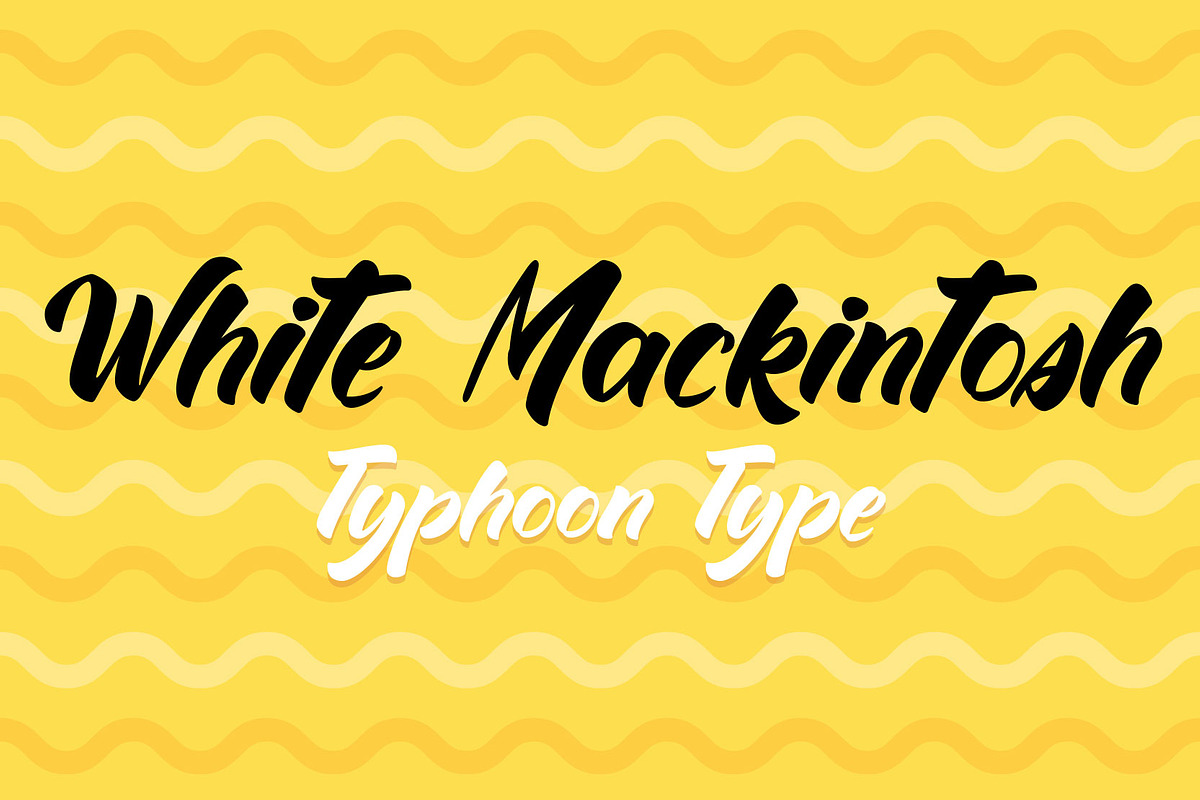
White Mackintosh font
White Mackintosh This font perfect for logos, name tag, advertising, product packaging, clothing, social media & greeting cards.
Why White Mackintosh font is worth a look
White Mackintosh font by TyphoonStudio fits naturally into Branding, posters, packaging, typography.